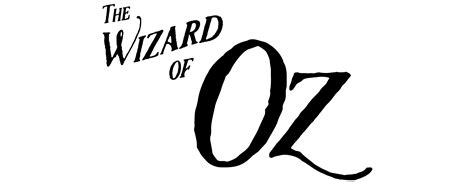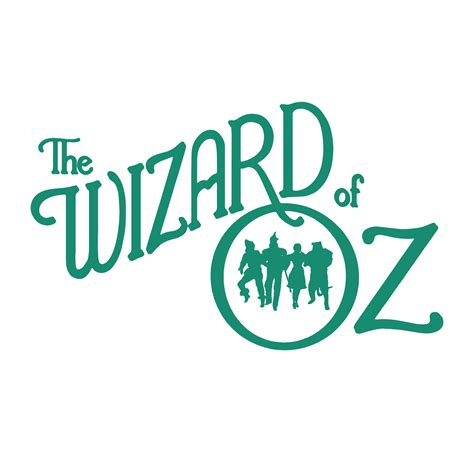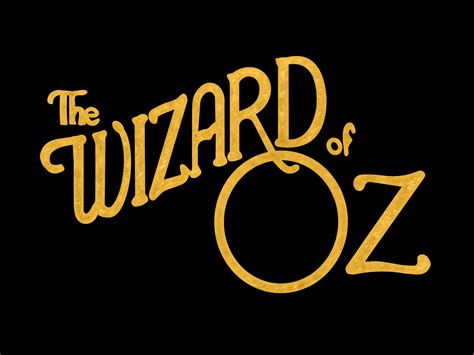
Typography plays a crucial role in design, setting the tone and enhancing the overall aesthetic of any project. Among the myriad of fonts available, the Wizard Of Oz Font stands out as a timeless classic, evoking nostalgia and a sense of adventure. This font, inspired by the iconic film "The Wizard of Oz," has a unique charm that makes it a favorite among designers and enthusiasts alike. Let's delve into the world of the Wizard Of Oz Font, exploring its history, characteristics, and practical applications.
History and Inspiration
The Wizard Of Oz Font draws its inspiration from the classic 1939 film "The Wizard of Oz," directed by Victor Fleming. The film is renowned for its groundbreaking use of color, special effects, and memorable characters. The font captures the whimsical and enchanting spirit of the movie, making it a beloved choice for projects that aim to evoke a similar magical atmosphere.
The font's design is reminiscent of the art deco style prevalent in the 1930s, with its clean lines and elegant curves. This period saw a surge in artistic movements that emphasized modernity and sophistication, and the Wizard Of Oz Font beautifully encapsulates this era's aesthetic.
Characteristics of the Wizard Of Oz Font
The Wizard Of Oz Font is characterized by its playful yet refined design. Here are some key features that make it stand out:
- Elegant Curves: The font features smooth, flowing curves that give it a graceful and sophisticated appearance.
- Bold and Playful: Despite its elegance, the font has a playful quality that makes it perfect for projects aimed at younger audiences or those with a whimsical theme.
- Versatile: The Wizard Of Oz Font can be used in a variety of contexts, from children's books to movie posters, making it a versatile choice for designers.
- Timeless Appeal: Inspired by a classic film, this font has a timeless appeal that transcends trends and remains relevant over time.
Applications of the Wizard Of Oz Font
The Wizard Of Oz Font is incredibly versatile and can be used in a wide range of applications. Here are some popular uses:
- Movie Posters and Promotional Materials: Given its origins, the font is a natural choice for movie posters, trailers, and other promotional materials related to films with a magical or adventurous theme.
- Children's Books and Educational Materials: The playful yet elegant design makes it ideal for children's books, educational materials, and any project aimed at a younger audience.
- Branding and Logos: The font's timeless appeal and versatility make it a great choice for branding and logo design, especially for companies that want to convey a sense of magic and adventure.
- Invitations and Greeting Cards: The Wizard Of Oz Font adds a touch of enchantment to invitations and greeting cards, making them more memorable and special.
Design Tips for Using the Wizard Of Oz Font
To make the most of the Wizard Of Oz Font, consider the following design tips:
- Pairing with Other Fonts: The Wizard Of Oz Font pairs well with both serif and sans-serif fonts. For a classic look, pair it with a serif font like Times New Roman. For a more modern feel, use a sans-serif font like Arial or Helvetica.
- Color Schemes: The font's elegant curves and playful design work well with a variety of color schemes. For a nostalgic feel, use pastel colors. For a more vibrant look, opt for bright, bold hues.
- Size and Spacing: Ensure that the font size is large enough to be easily readable. Adjust the line spacing and letter spacing to maintain a clean and uncluttered look.
- Backgrounds: Choose backgrounds that complement the font's design. Avoid busy or overly patterned backgrounds that can distract from the text.
Comparing the Wizard Of Oz Font with Other Classic Fonts
To better understand the unique qualities of the Wizard Of Oz Font, let's compare it with other classic fonts:
| Font Name | Characteristics | Best Used For |
| Wizard Of Oz Font | Elegant curves, playful design, timeless appeal | Movie posters, children's books, branding |
| Comic Sans | Casual, informal, hand-drawn style | Informal documents, children's materials |
| Times New Roman | Classic serif, formal, traditional | Academic papers, formal documents |
| Helvetica | Clean, modern, versatile | Logos, branding, digital media |
The Wizard Of Oz Font stands out for its unique blend of elegance and playfulness, making it a versatile choice for a variety of projects.
Incorporating the Wizard Of Oz Font into Your Designs
Incorporating the Wizard Of Oz Font into your designs can add a touch of magic and nostalgia. Here are some steps to help you get started:
- Choose the Right Project: Identify projects where the font's unique characteristics will enhance the overall design. This could be anything from a children's book to a movie poster.